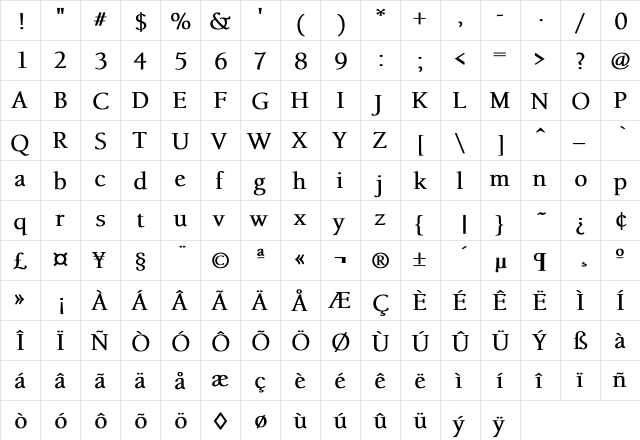
Hastings Bold
Design Context for Hastings Typeface
Hastings is a composed and adaptable typeface that performs quietly and consistently across a wide range of design contexts. Its bold stroke weight gives it real presence on the page.